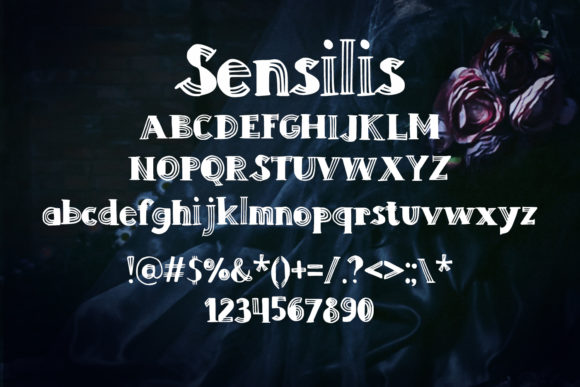
Introduction to Sensilis Font
Have you ever stared at a blank canvas, unsure of where to begin your next creative project? The blank page can be intimidating, but sometimes all it takes is the right spark to get those creative juices flowing. For designers, the perfect font can be just that spark.
Enter the Sensilis Font, a modern and unique display font that’s sure to elevate your designs to new heights. With its incredibly versatile style, this font fits a wide pool of designs, making it a valuable resource for any creative project. Whether you’re working on a logo, advertisement, or infographic, Sensilis Font is the perfect addition to bring your ideas to life.
Key Features of Sensilis Font
- Features a unique and stylish design, perfect for adding a touch of elegance to any project.
- Supports a range of languages, making it a versatile choice for designers working on international projects.
Honest Review: Sensilis Font
As a designer, I’m always on the lookout for high-quality design resources to enhance my creative projects. Recently, I stumbled upon the Sensilis Font, and I’m excited to share my honest review.
What works well: ✨ I appreciate the elegant and sophisticated design of the Sensilis Font. It’s perfect for projects that require a touch of luxury and sophistication. The font is also available for free download, making it an excellent addition to any design collection.
- High-quality design: The Sensilis Font boasts a sleek and modern design that’s sure to impress.
Any limitations: ⚠️ While the Sensilis Font is an excellent addition to any design collection, it’s worth noting that it may not be suitable for projects that require a more playful or informal tone.
Overall impression: I’m thoroughly impressed with the Sensilis Font. Its high-quality design and free availability make it an excellent resource for designers. Whether you’re working on a luxury brand or a creative project, the Sensilis Font is definitely worth considering.
Tips for Getting the Most Out of Sensilis Font
To get the most out of the Sensilis Font, use it in combination with other design elements like images and shapes. Experiment with different font sizes and styles to create a visually appealing design.
The Sensilis Font is ideal for various creative projects, including graphic design, digital art, and typography. It’s perfect for creating logos, business cards, and other promotional materials.